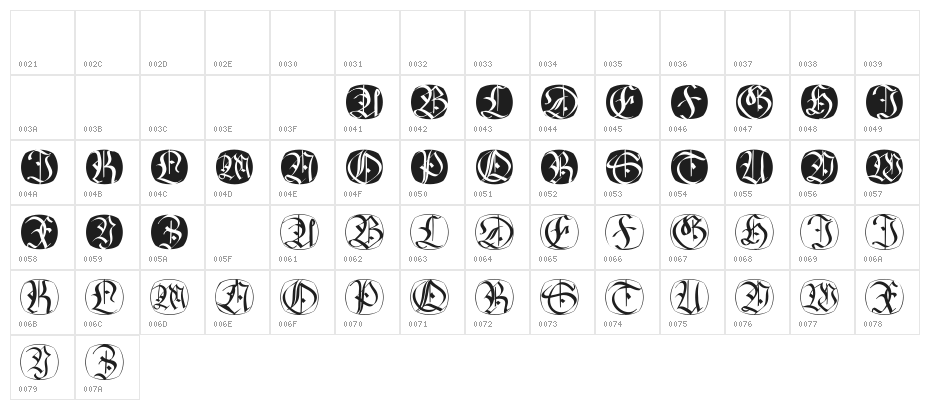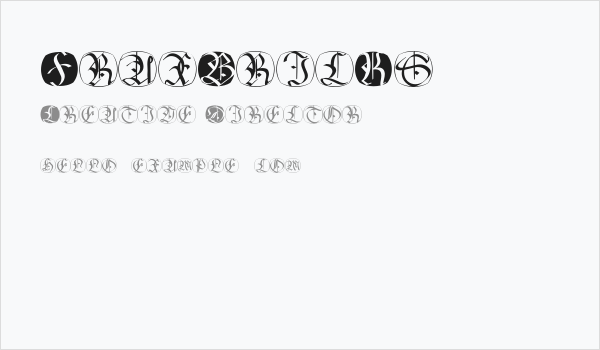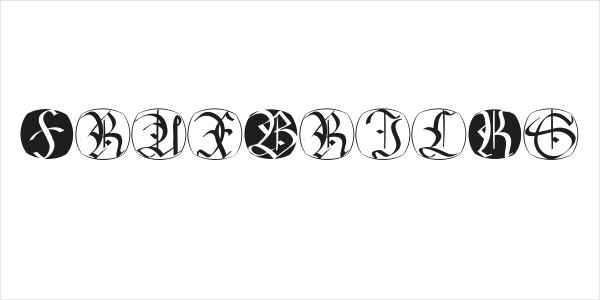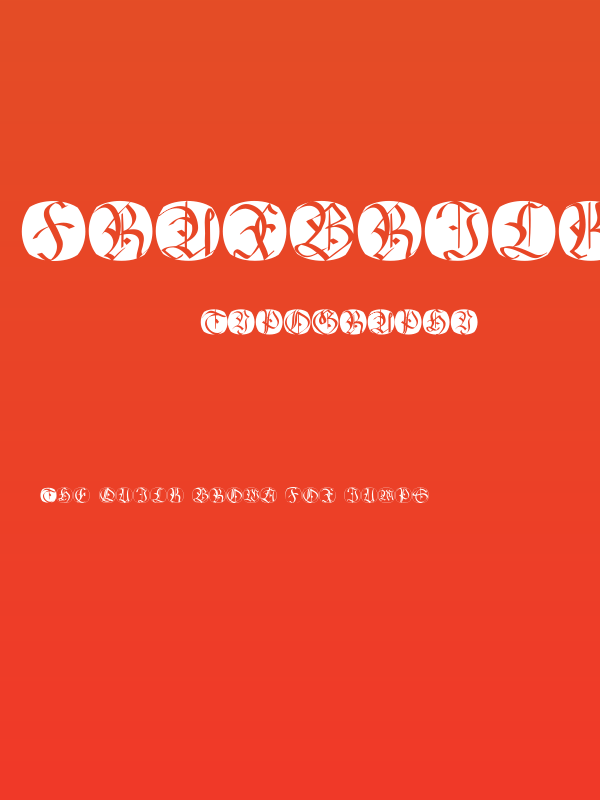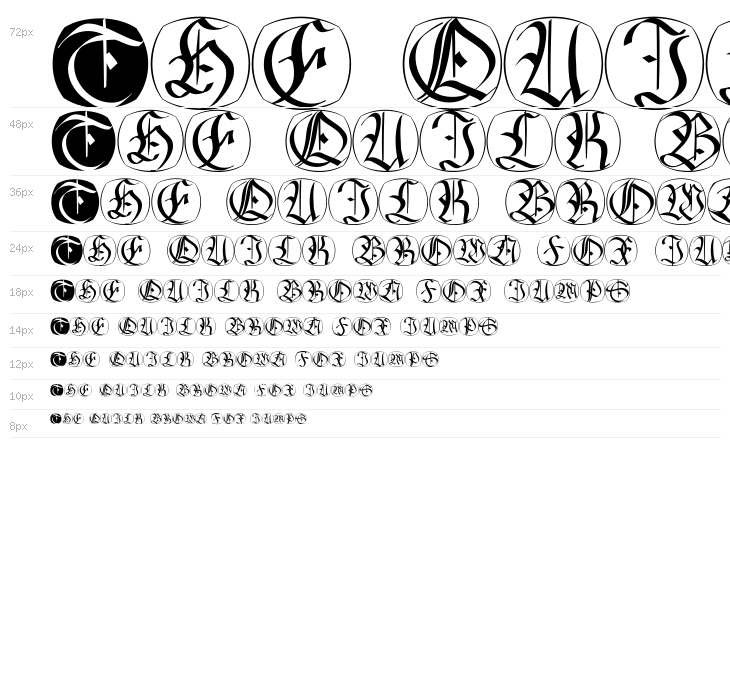
FraxBricKs Font
FraxBricKs Description
This font features a bold, Gothic style with intricate, decorative elements that give it a distinct medieval appearance. Each character is enclosed within a circular border, enhancing its ornamental quality. The uppercase letters are particularly elaborate, with sharp, angular strokes and flourishes that evoke a sense of historical grandeur. The lowercase letters maintain the same stylistic elements, ensuring consistency across the typeface. The numbers and special characters are designed to match the overall aesthetic, making this font suitable for projects that require a dramatic and eye-catching look.